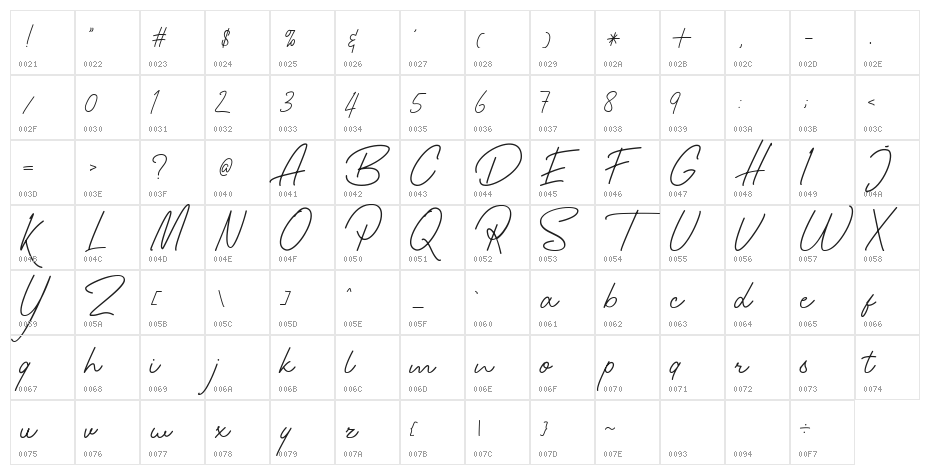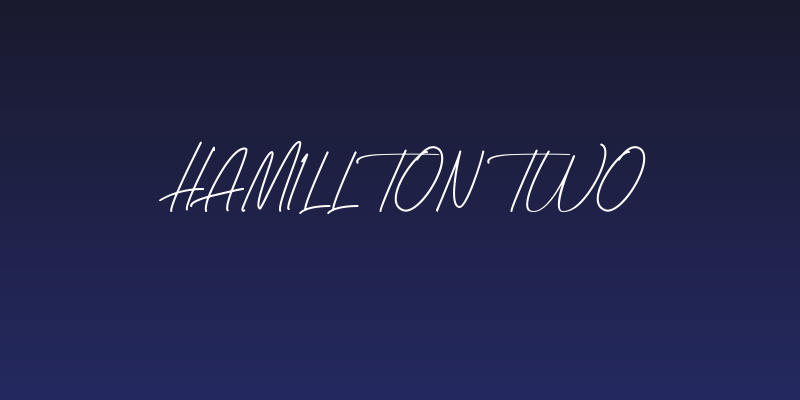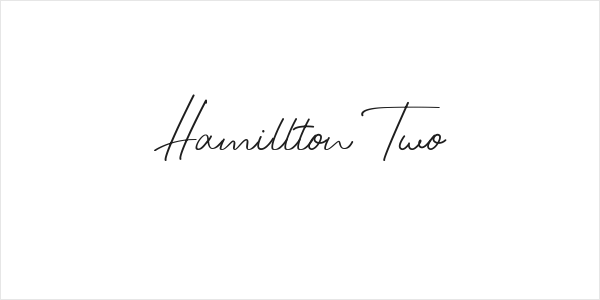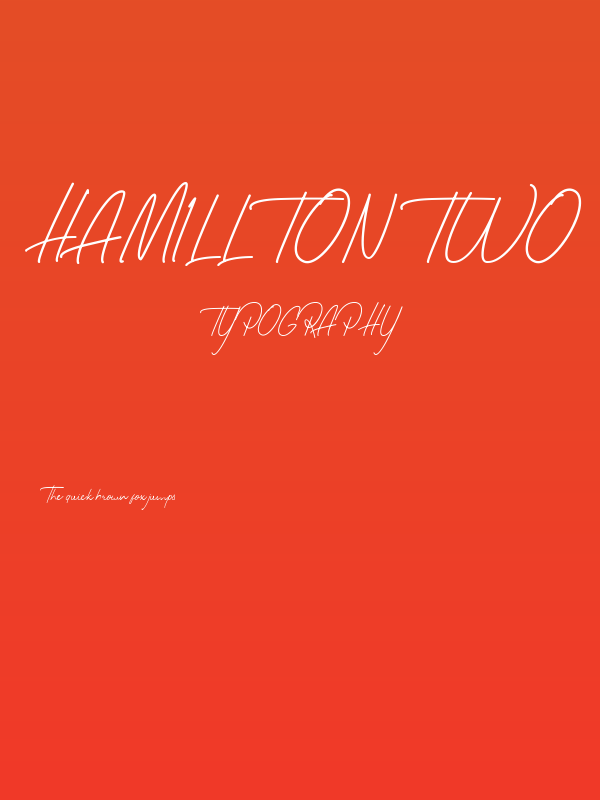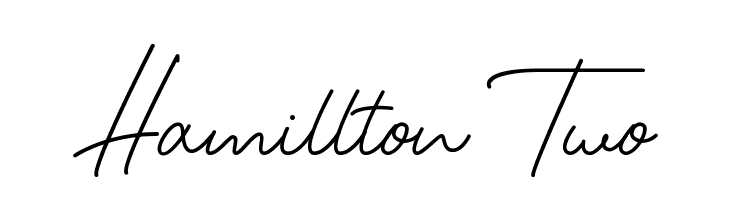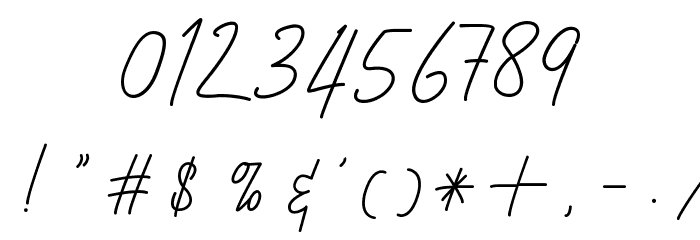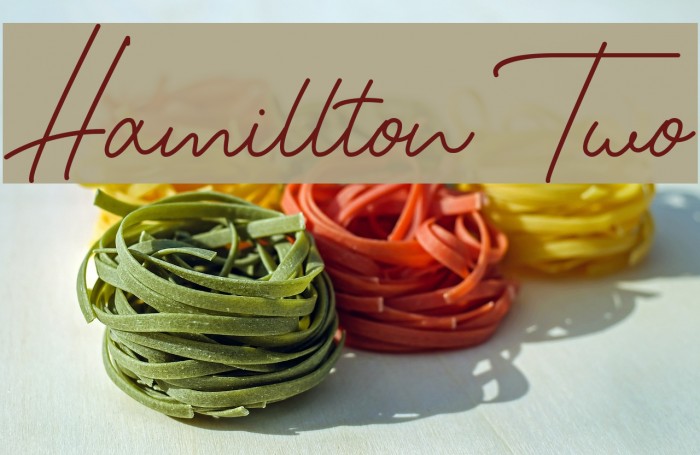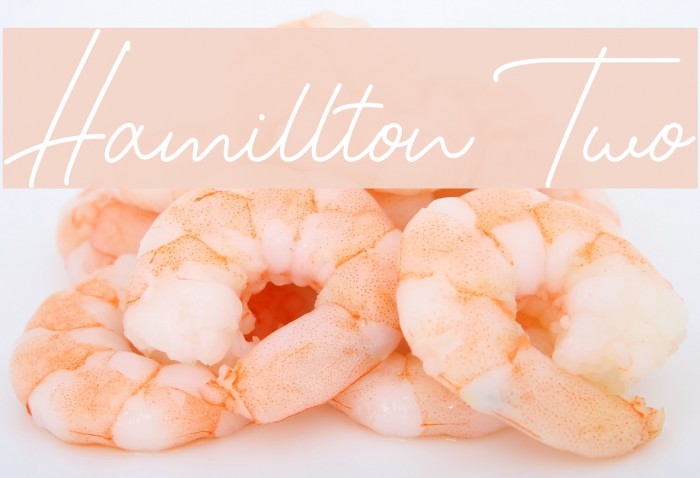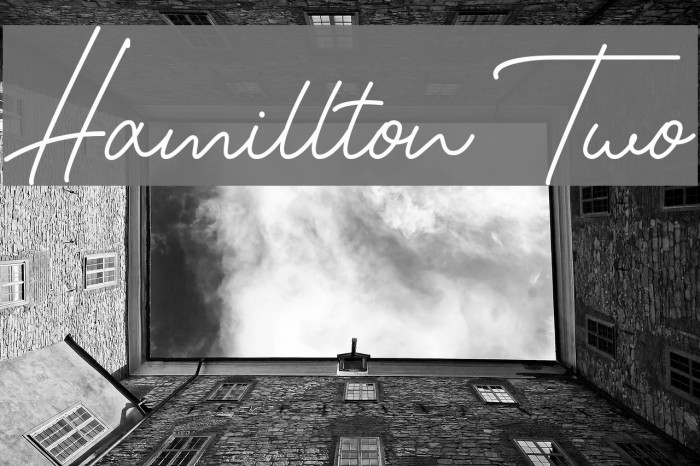
Hamillton Two Font
Hamillton Two Description
This elegant script font features a flowing, handwritten style that exudes sophistication and charm. The characters are connected with smooth, fluid strokes, creating a seamless and natural appearance. The uppercase letters are tall and slightly slanted, while the lowercase letters maintain a consistent baseline with gentle curves. The numerals are clear and legible, matching the overall aesthetic of the font. Special characters are thoughtfully designed to complement the script style, making it versatile for various uses. This font is perfect for projects that require a personal touch, such as invitations, greeting cards, and branding materials.
| Use Case | Logos, Invitations, Greeting cards |
| Proposed Projects | Ideal for wedding invitations, personal branding, greeting cards, and elegant packaging. |